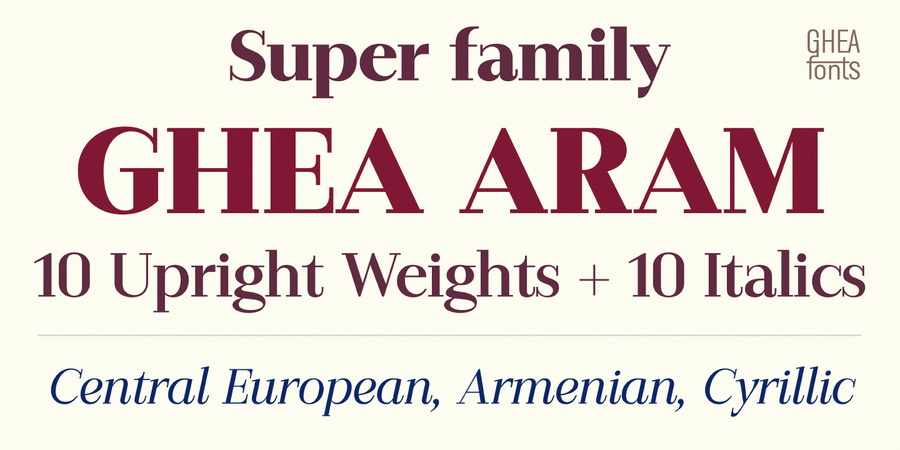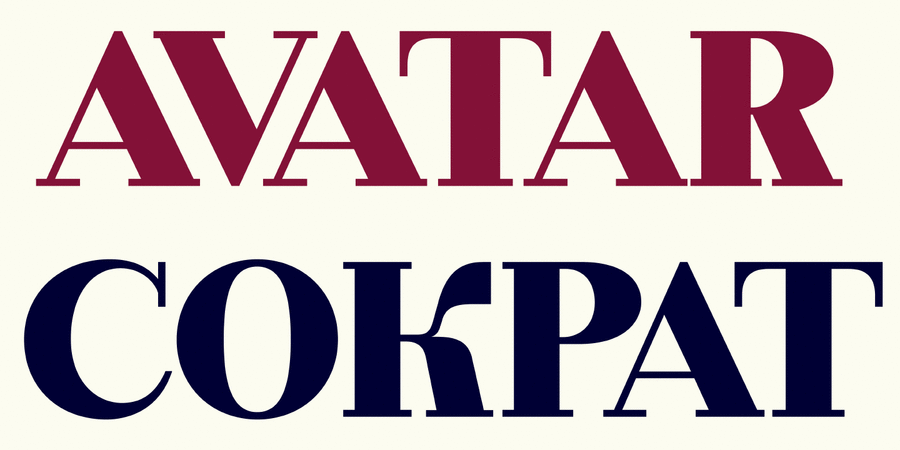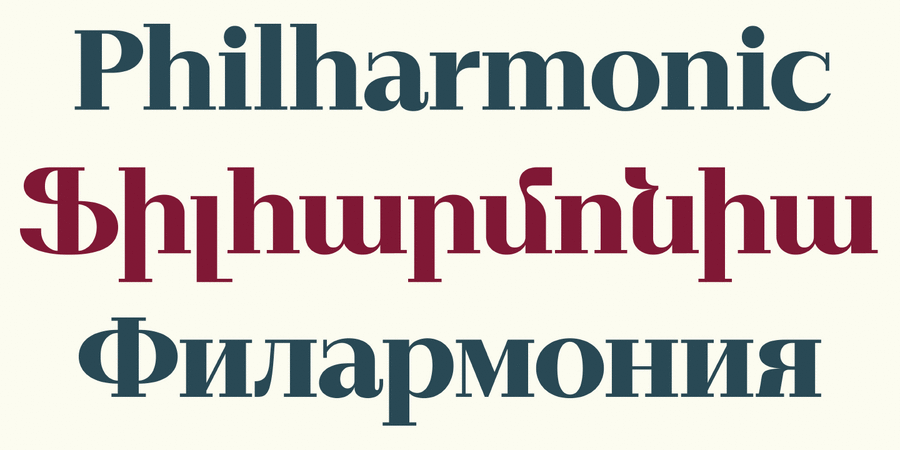
About GHEA Aram is multifunctional high contrast modern typeface. It can be used as Display as well as Text font. The family includes Armenian, Cyrillic and Latin alphabets. The typeface was designed by Edik Ghabuzyan in 2018-2021.
Associations for font family GHEA AramTypeface personality and character:
thin, easy, delicate, flat, harmonious, technically, modern, static, cultural, educated, serious, solid, crisp, cutting, sharp, luxurious, fashionable, jewelry, artistic, polite, dynamic, elegant, stable, spectacular, high-quality, elite, expensive, rich, urban, select, noble, beautiful, masterful, aesthetically beautiful, expressive, plastic, pleasant, orderly, flexible, strict, reputable, Glamorous, romantic, convincing, classic, cultured, aristocratic, salon art, solemn, voiced, refined, musical, brilliant, famous, precious, comme il faut, original, glossy, proud, silver, theatrical, dramatic, creative, sexy, bright, tactful, motivating, authoritative, formidable, heavy, dense, notable, active, splashy